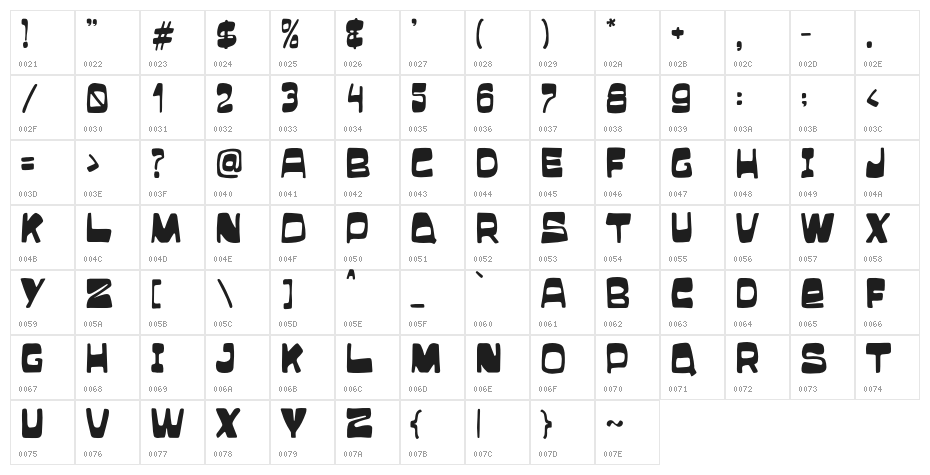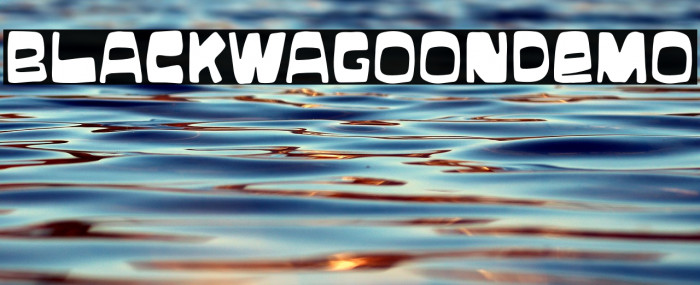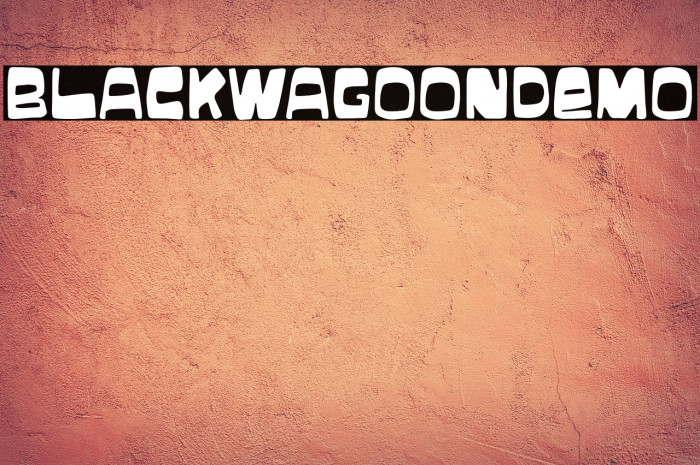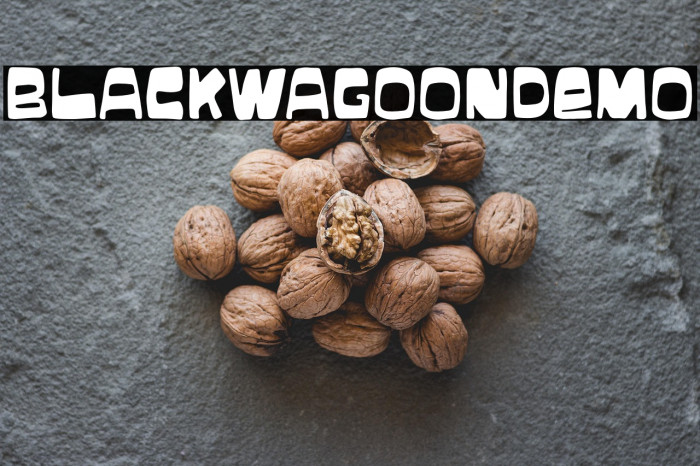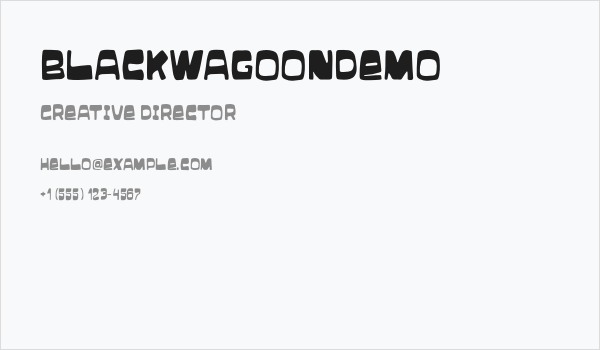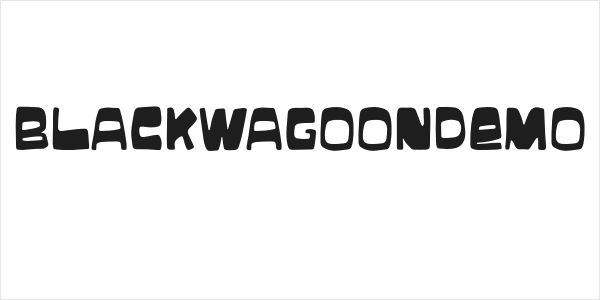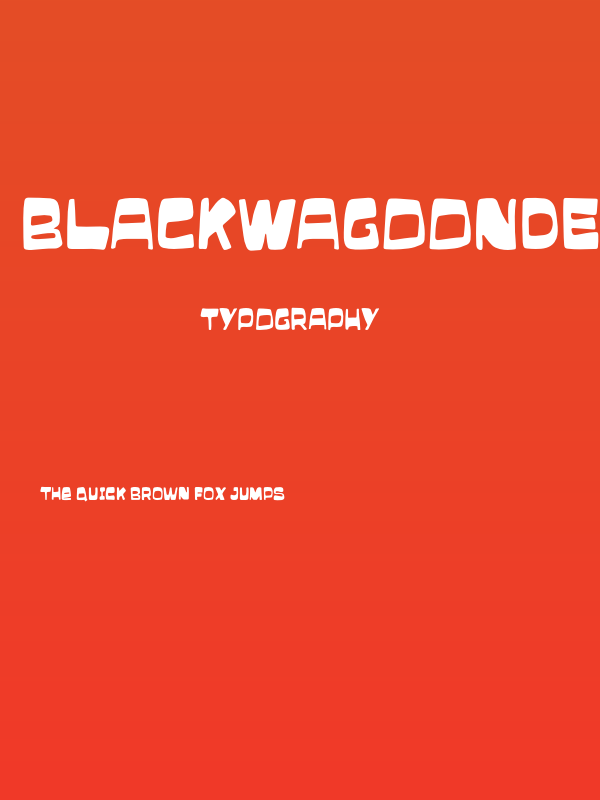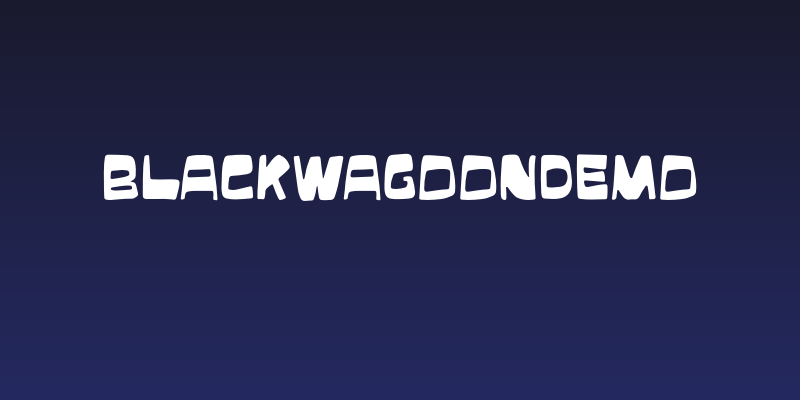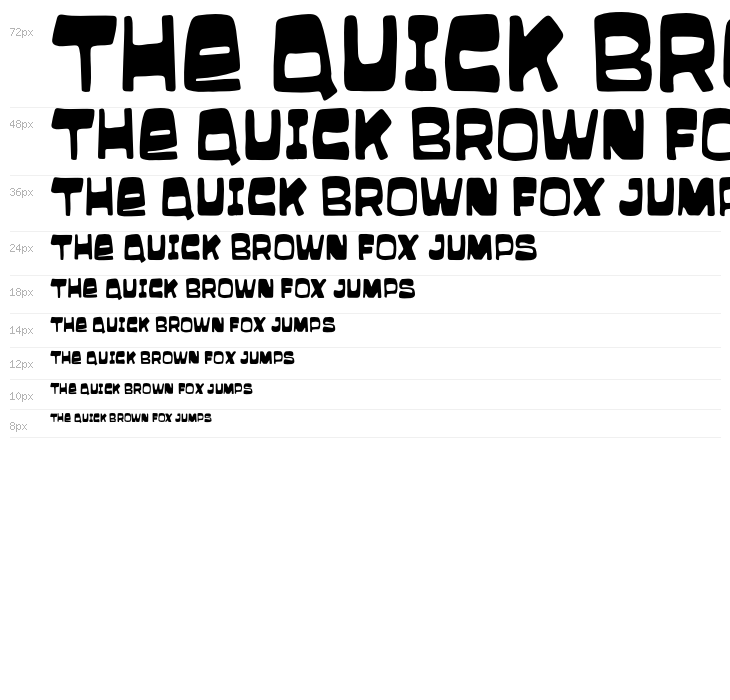
BlackWagoonDemo Font
BlackWagoonDemo Description
This font features a bold and playful design with a distinctly hand-drawn aesthetic. The characters are thick and rounded, giving them a cartoonish and friendly appearance. The uppercase and lowercase letters maintain a consistent style, with exaggerated curves and a slightly uneven baseline that adds to the whimsical feel. The numbers and special characters follow the same playful theme, making the font suitable for creative and informal projects. Its unique style makes it stand out, perfect for grabbing attention in headlines or logos.
| Overall Style | Playful, Cartoonish, Hand-drawn |
| Use Case | Headlines, Logos, Posters, Children's materials |
| Proposed Projects | Ideal for children's books, comic strips, playful branding, and eye-catching headlines. |